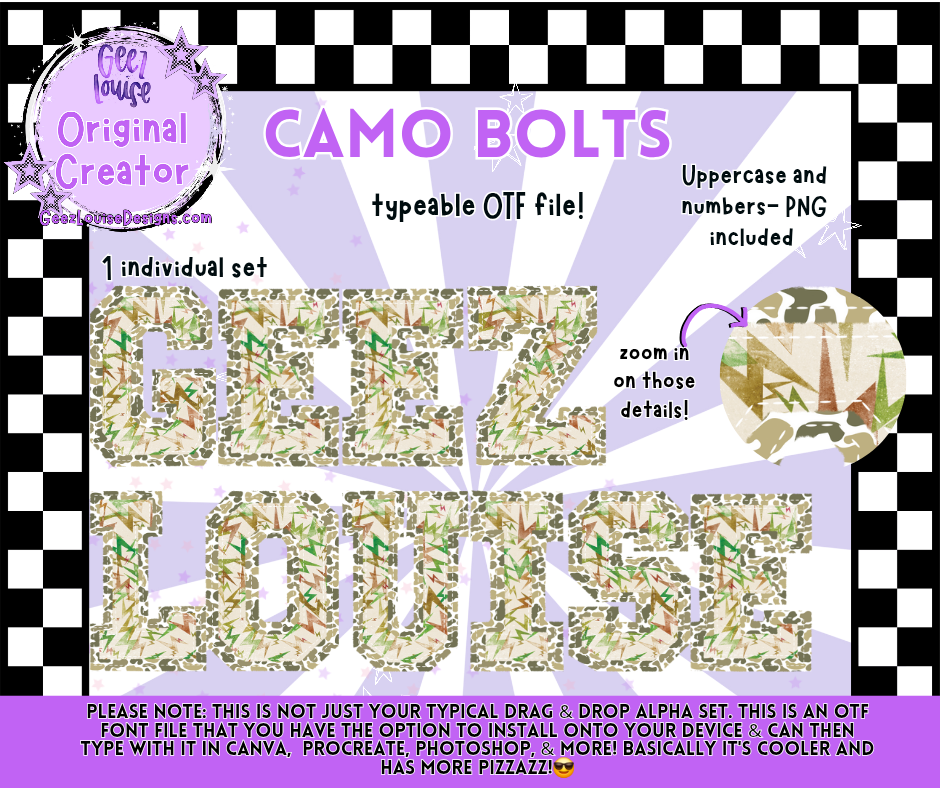
CAMO BOLTS — Typeable OTF Font + PNG
March into the mess. This font doesn’t blend in—it bolts out
Meet CAMO BOLTS, the latest riot from Geez Louise. This typeable OTF font is decked out in camo chaos and electric bolt patterns, built for creators who want their type to scream louder than their graphics. Whether you're designing merch, crafting digital rebellion, or just need your letters to punch through the noise—this font’s got your back.
Designed for alt creators, merch makers, and chaos conjurers
Zoom-worthy details that hold up in any layout